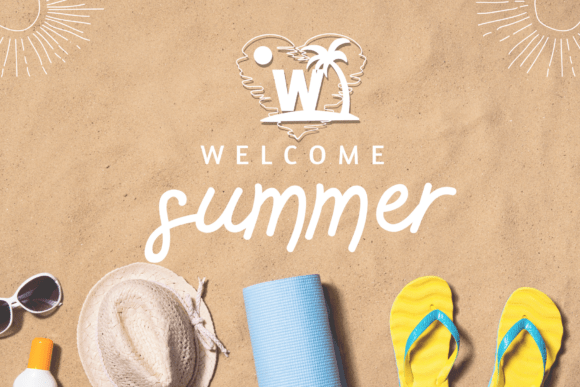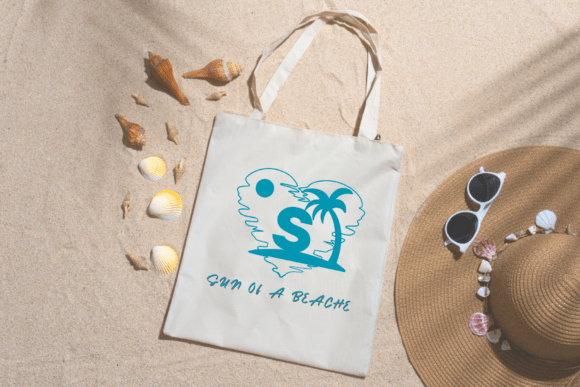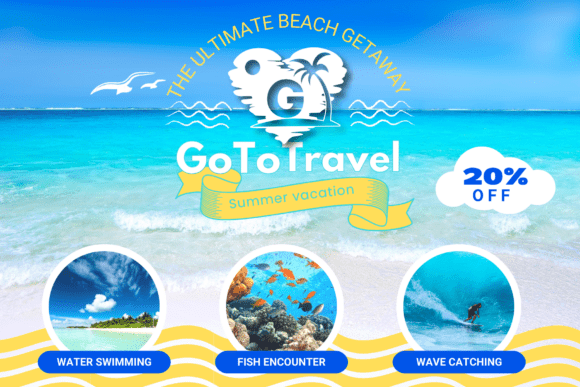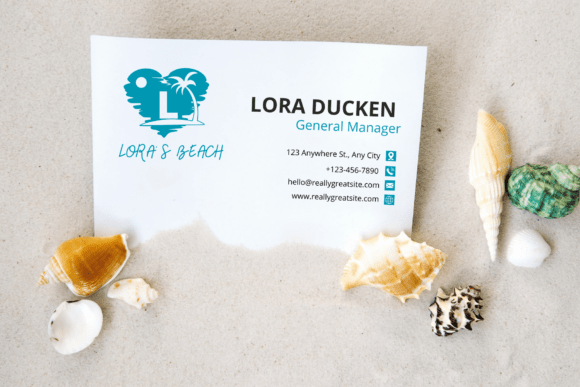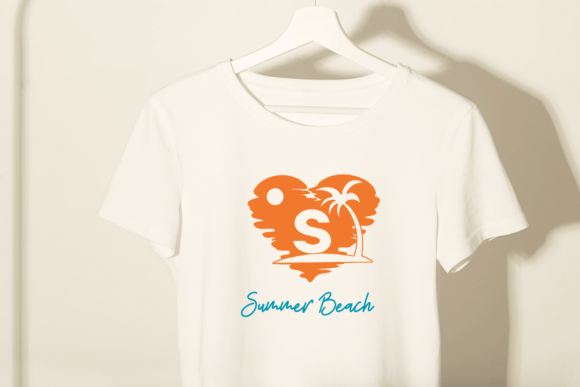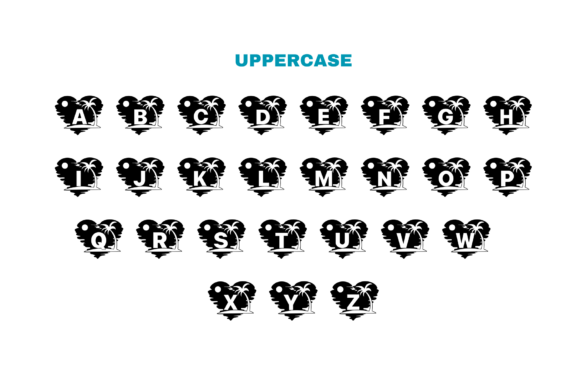
Seas the Day: Discovering the Perfect Beachy Keen Monogram
Have you ever found yourself strolling along the beach, feeling the ocean breeze in your hair, and suddenly, the perfect design idea strikes? That’s exactly what happened to me on a sunny Saturday afternoon. I was daydreaming about the perfect monogram font to add a touch of coastal charm to my next project. Little did I know, I was about to stumble upon the Beach Girl Monogram Font – a delightful, authentic decorative font that’s about to become your new favorite.
This gorgeous Beach Girl Monogram Font is more than just a pretty face; it’s a versatile and reliable design tool that can elevate any project. From gift tags and cards to pillows and wall art, this font is perfect for adding a personal touch. And as a designer, you’ll love the endless possibilities it offers – use it on t-shirts, mugs, and anything else you can think of!
Beach Girl Monogram Font Key Features
- Unique Characteristics: Distressed, handwritten, and monogram-style font with a beachy vibe, ideal for creating a relaxed and casual atmosphere
- Number of Characters: Includes uppercase and lowercase letters, numerals, and special characters, with over 200 unique glyphs
- Font Style: Includes bold, italic, and regular styles for added versatility
Designer Review: Beach Girl Monogram Font
Overall, I think the Beach Girl Monogram Font has some great qualities, but it also has some areas where it falls short. ✨ Let’s start with the positives.
- ✨ The font is very feminine and playful, making it perfect for designs related to the beach, summer, or romance.
- ✨ The monogram style is unique and eye-catching, adding a personal touch to any design.
- ✨ The font is available in a variety of styles and weights, making it versatile and easy to use.
- ⚠️ The font may be too ornate or busy for some designs, making it difficult to read or notice the text.
- ⚠️ Some of the letters may not be as legible or clear as others, which could affect the overall quality of the design.
- ⚠️ The font may not be suitable for formal or professional designs, as it has a more casual and playful vibe.
Overall, I think the Beach Girl Monogram Font is a great choice for designers looking to add a touch of whimsy and personality to their designs. However, it’s essential to use it thoughtfully and consider the context in which it will be used.
Tips for Getting the Most Out of Beach Girl Monogram Font
Use the Beach Girl Monogram Font to create a beach-themed design, such as a beach invitation or a summer-inspired poster.
Combine the font with a pastel color palette for a soft and feminine look.
Use the font to add a personal touch to your designs, such as a monogram or a custom logo.
Beach Girl Monogram Font is ideal for:
Beach-themed designs
Summer-inspired posters and invitations
Personalized monograms and logos